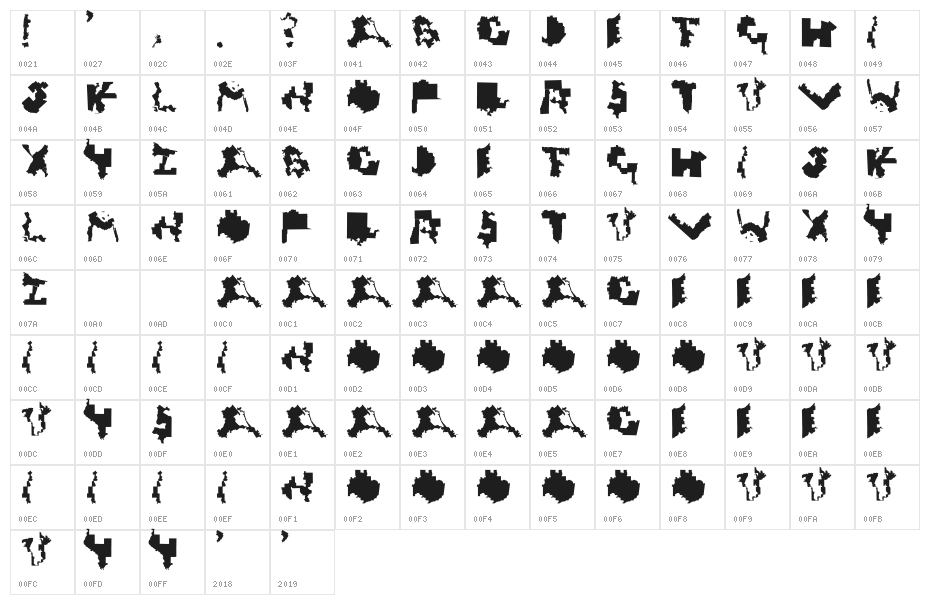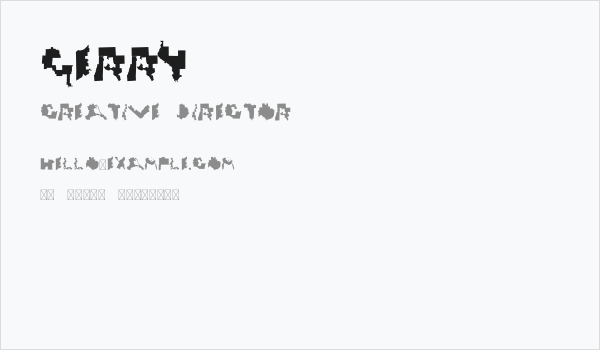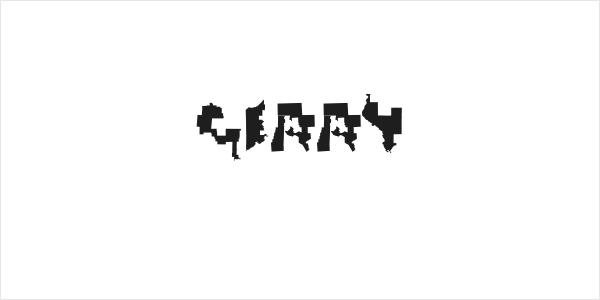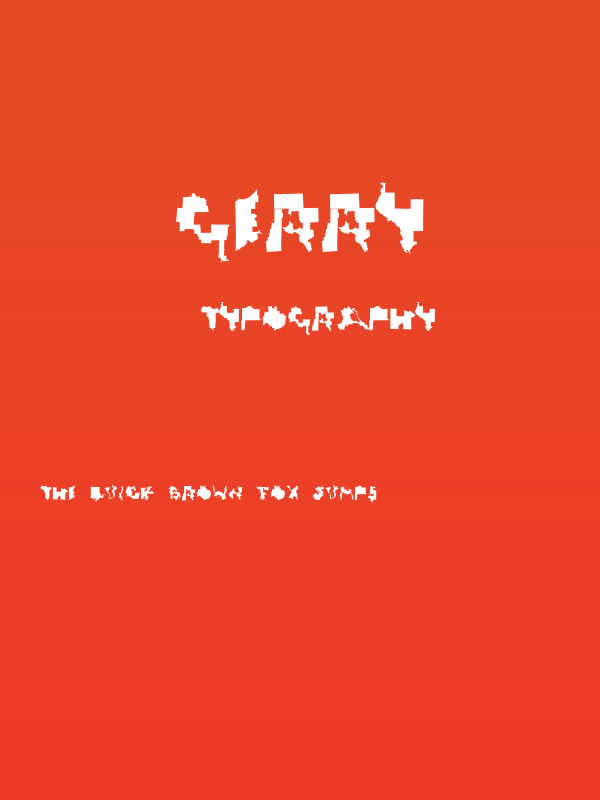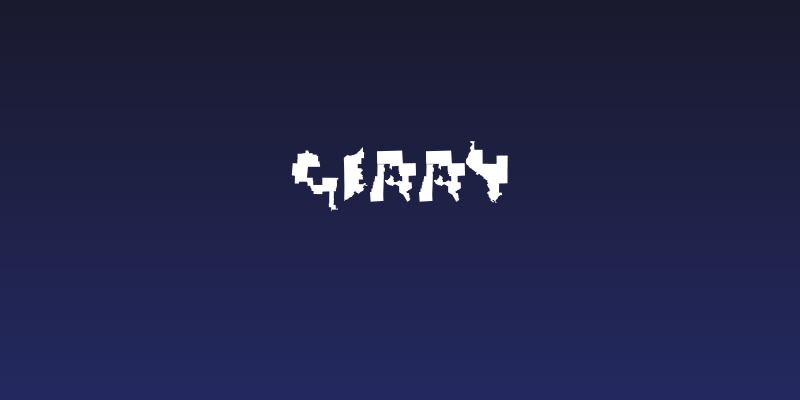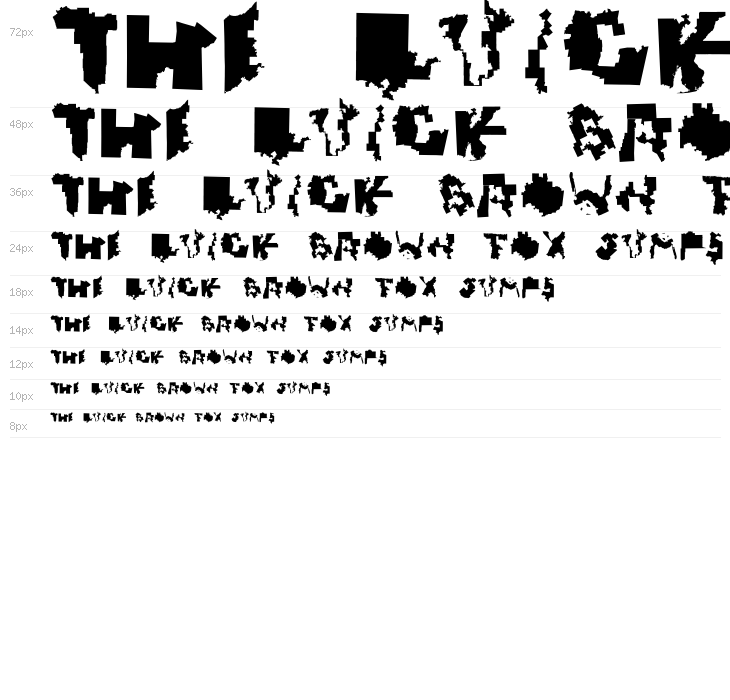
Gerry Font
Gerry Description
This font features a highly distressed and fragmented style, giving it a rugged and chaotic appearance. Each letter appears as if it has been torn or eroded, creating a unique texture that is both bold and eye-catching. The uppercase and lowercase letters maintain this distressed look, making it suitable for projects that require a raw and edgy aesthetic. The font lacks uniformity, with varying shapes and sizes, adding to its overall dynamic and unpredictable nature. This style is particularly effective for designs that aim to convey a sense of destruction or grunge.
| Overall Style | Grunge, Distressed |
| Proposed Projects | Ideal for album covers, horror movie posters, urban streetwear branding, and any design needing a grunge or distressed look. |